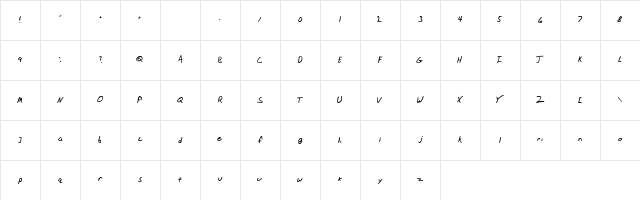
JHand flows with the natural rhythm of handwritten lettering, making it ideal for designs that call for warmth and personal expression.
Font Pairing: Combine JHand with a simple geometric sans for maximum contrast - the tension between flowing curves and clean structure is a classic typographic pairing.
Pro Tip: Use JHand for short runs of text - names, titles, or taglines. Extended body copy in script faces tires the eye quickly.